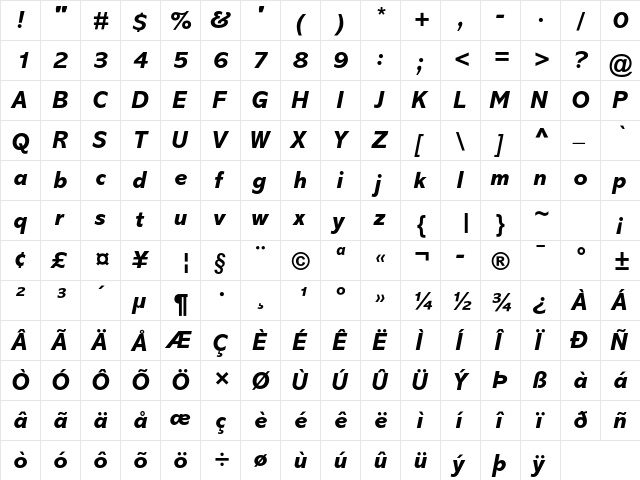
Abadi MT Std Extra Bold It
| Foundry | Agfa Monotype Corporation |
Design Context for Abadi MT Std Typeface
Abadi MT Std offers clean, dependable letterforms without strong stylistic allegiance, making it a practical choice for designers who need flexibility. The heavy weight commands attention and anchors typographic hierarchies.